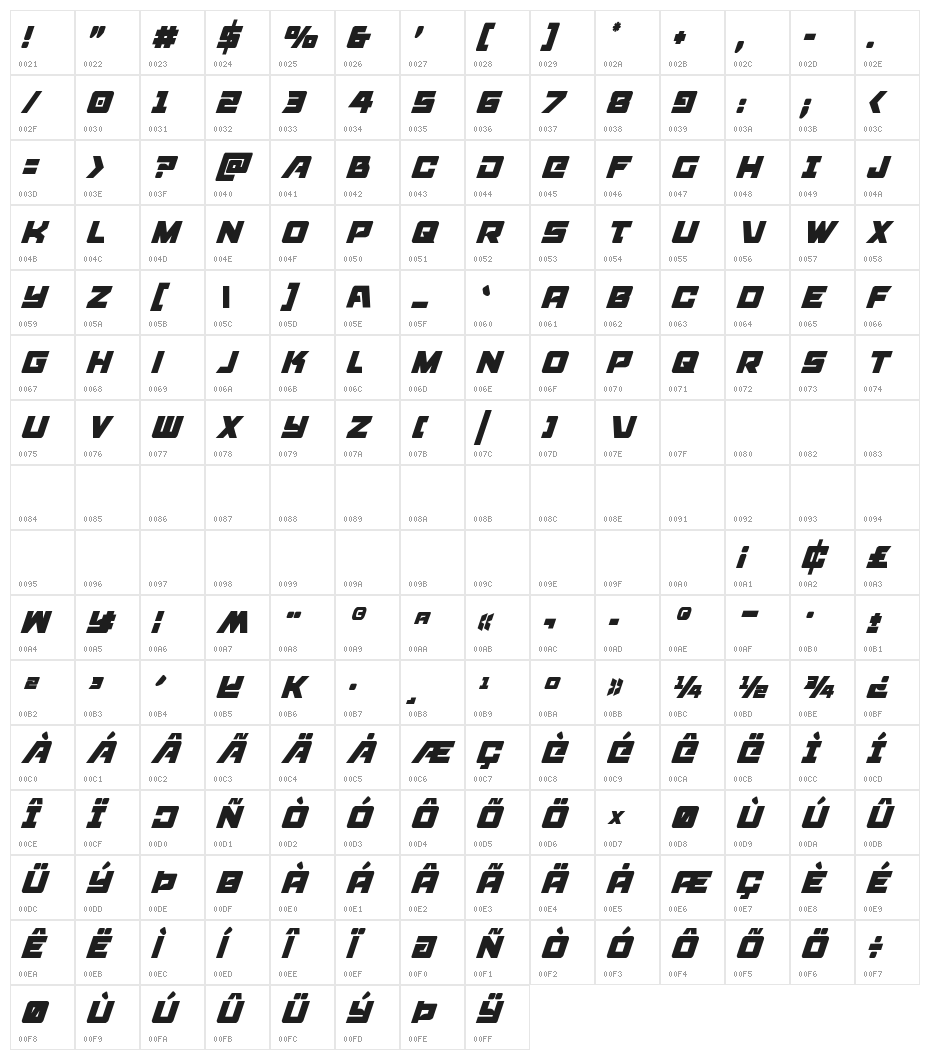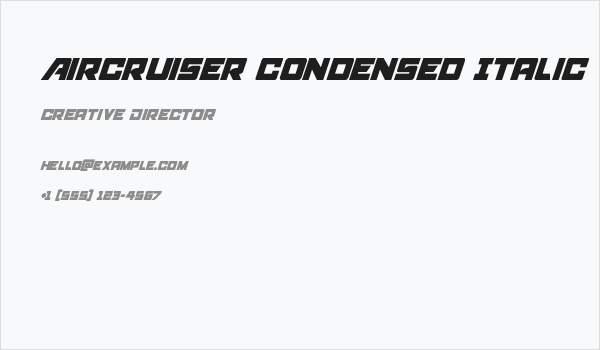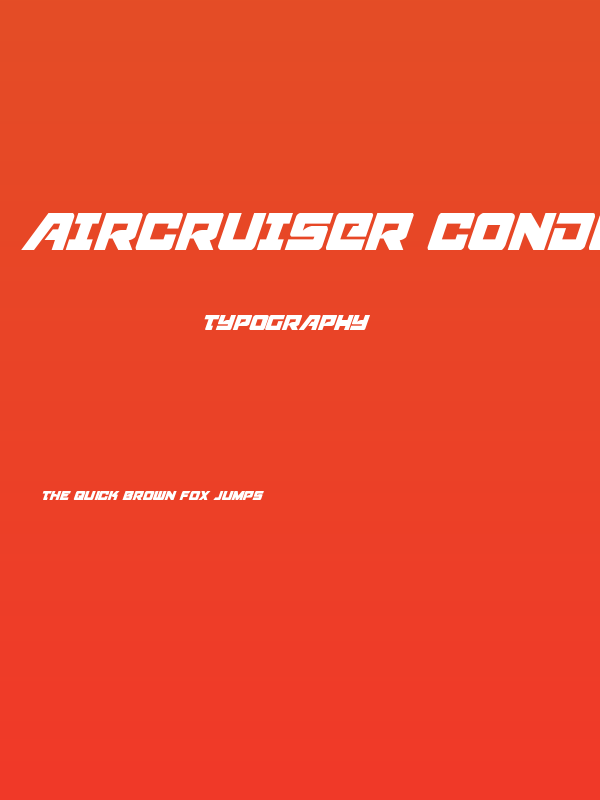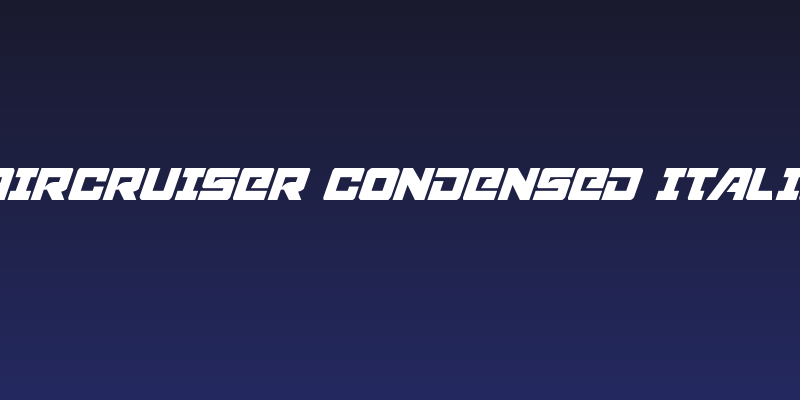
Aircruiser Condensed Italic Font
Aircruiser Condensed Italic Description
This font features a bold, italicized style with a condensed width, giving it a dynamic and modern appearance. The characters are sharply angled, creating a sense of movement and speed. The uppercase letters are prominent and impactful, while the numbers and special characters maintain the same boldness and angularity. The overall design is sleek and futuristic, making it suitable for projects that require a strong visual impact.
| Proposed Projects | Ideal for use in automotive branding, sports team logos, video game titles, and futuristic-themed posters. |